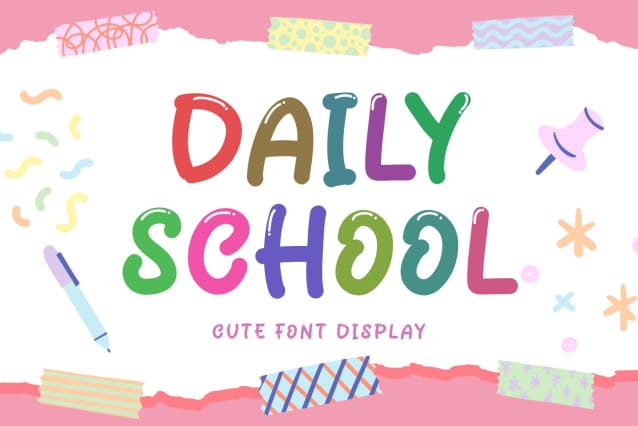
Daily School Font
Daily School Font is a cute display font. This font is equipped with uppercase, lowercase, numerals, punctuations and multilingual support. Very suitable for back to school, summer, kids, children, birthday, Christmas, teachers, father’s day, comics, magazines and others.